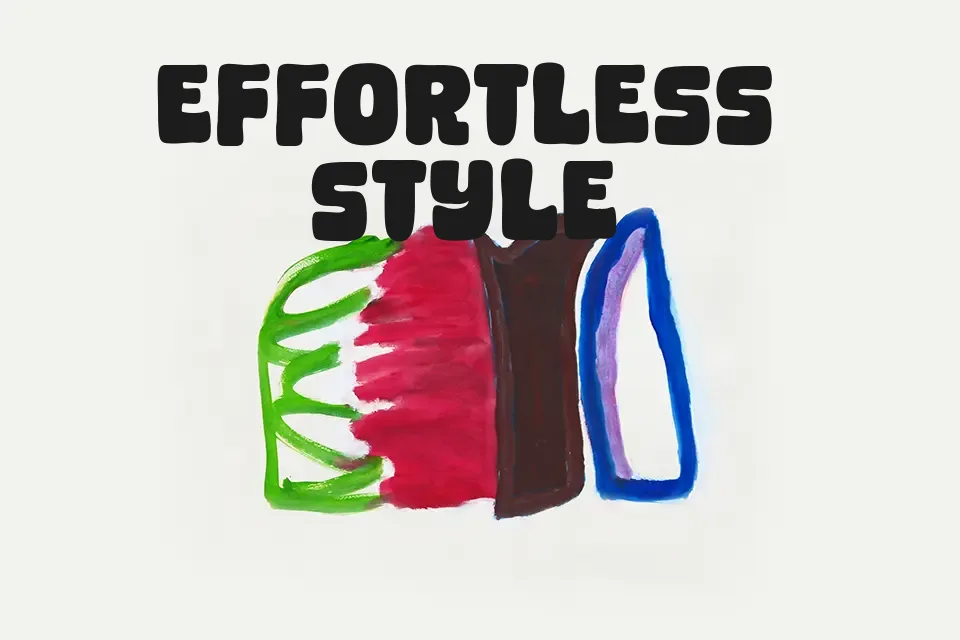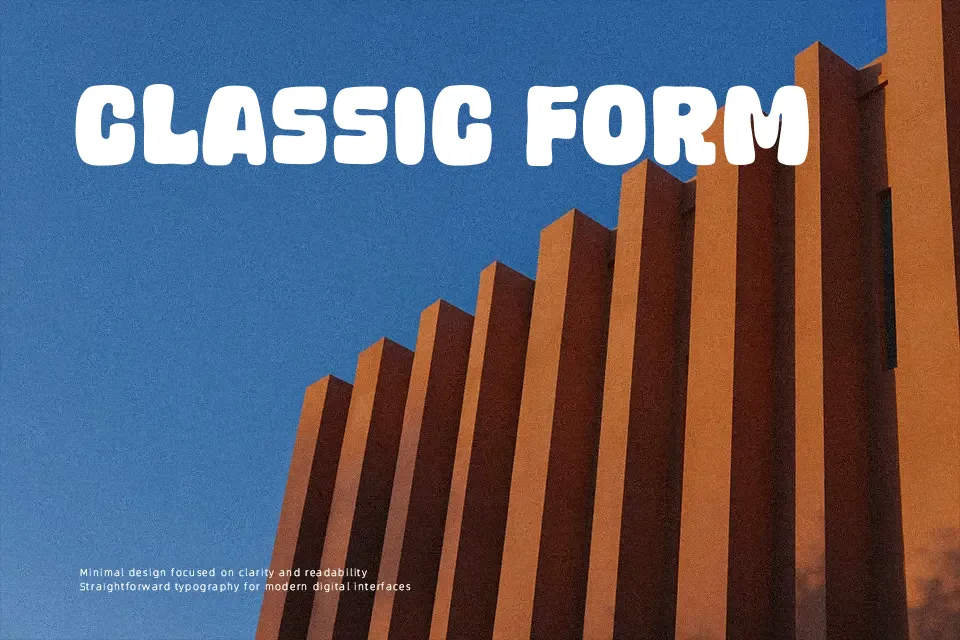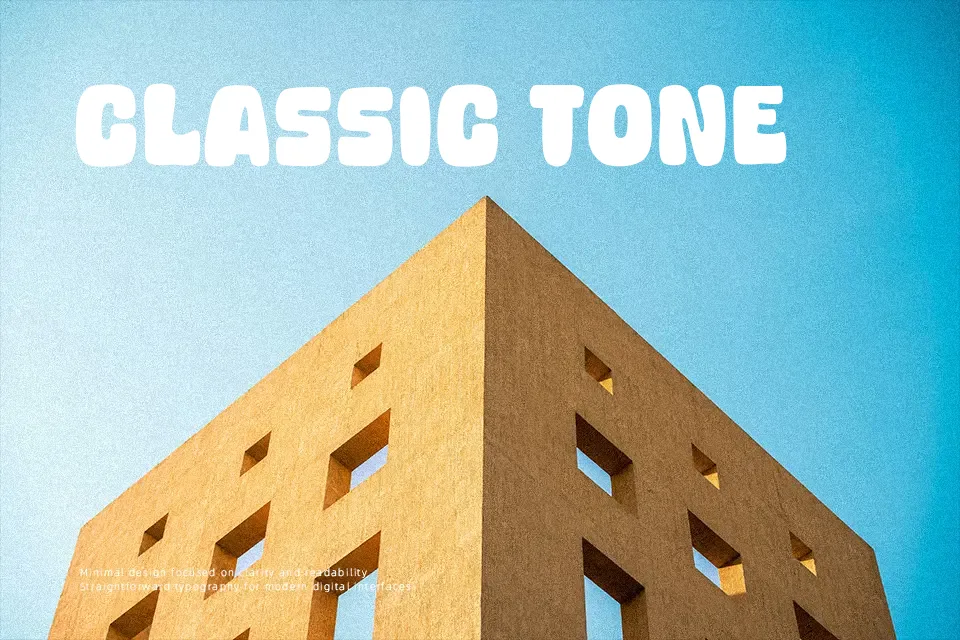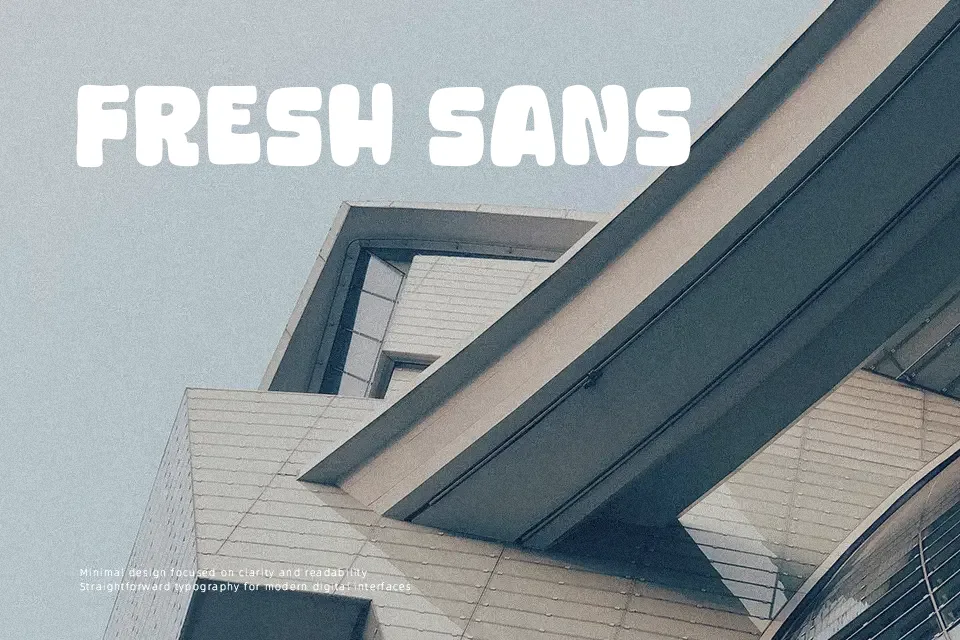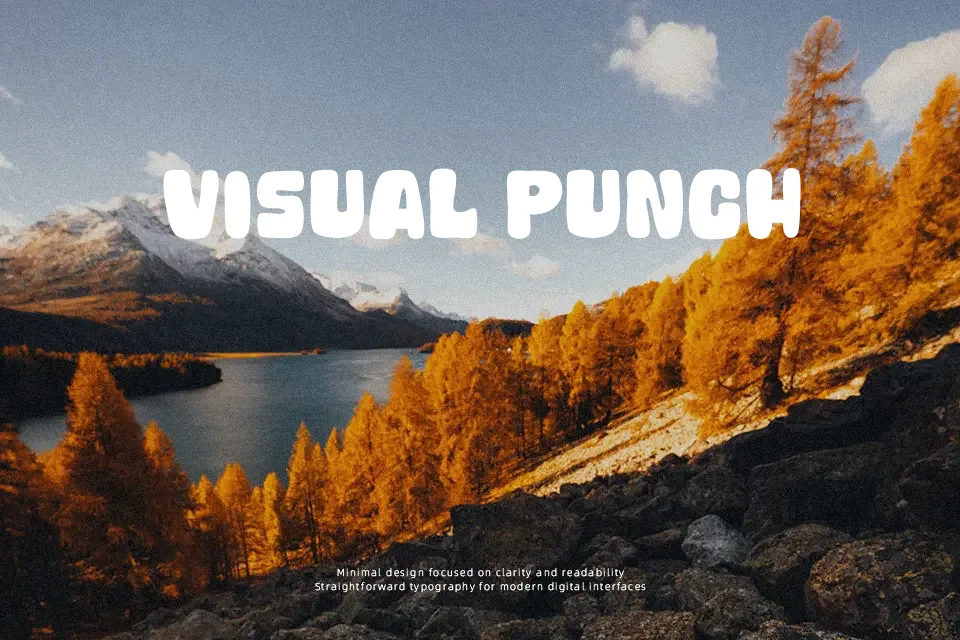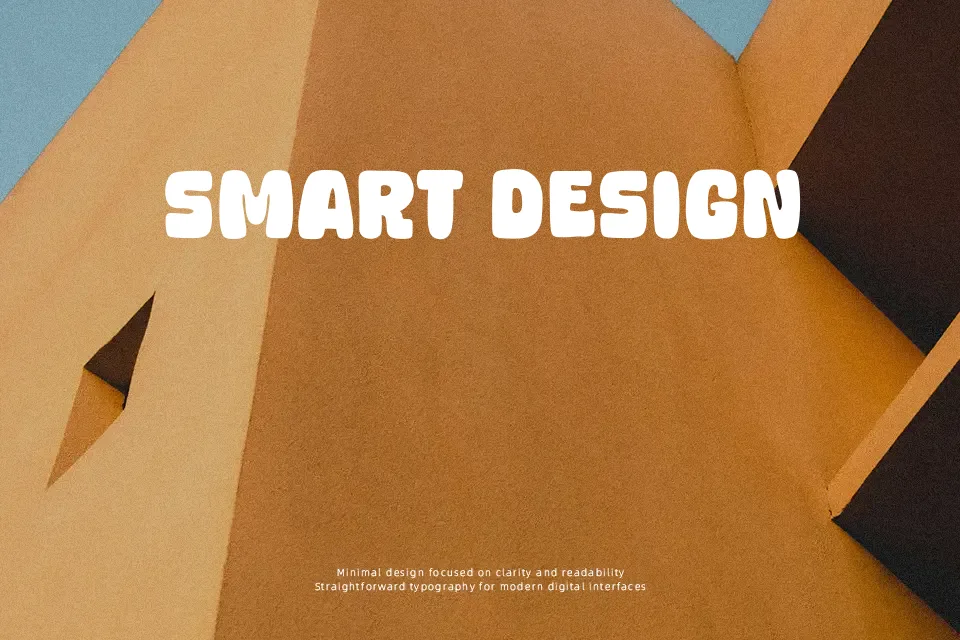
Aku Ceria Font
Designed by Khurasan™
There’s an unmistakable buoyancy to Aku Ceria — the rounded terminals and loosely spaced letterforms feel less like a typeface and more like handwritten enthusiasm frozen in digital form. Designed by Khurasan Studio, it leans into cartoon-style irregularity without sacrificing readability at display sizes. The thick, uniform strokes and soft curves make it naturally suited for children’s event posters, food packaging with a casual vibe, or social media graphics that need instant warmth. Where it stumbles is at small sizes: the openness of the characters loses cohesion below 18–20pt, and it is wholly unsuitable for running body text. Designers looking for a cheerful Latin display font will find it delivers quickly — but projects requiring multilingual character support beyond basic Latin should look elsewhere, as the free version explicitly omits extended language coverage.
Best For:- Kids’ birthday party invitations and event posters
– Casual food or beverage packaging headers
– Playful social media graphics and story overlays
– Youth-brand logo lockups needing approachable energy
Not Ideal For:- Long-form body text or editorial paragraphs
– Corporate or professional business documents
– Designs requiring multilingual or extended character sets
– Small-size applications under 18pt
Perfect for branding, kids, and logo, with a cute and cartoon style.